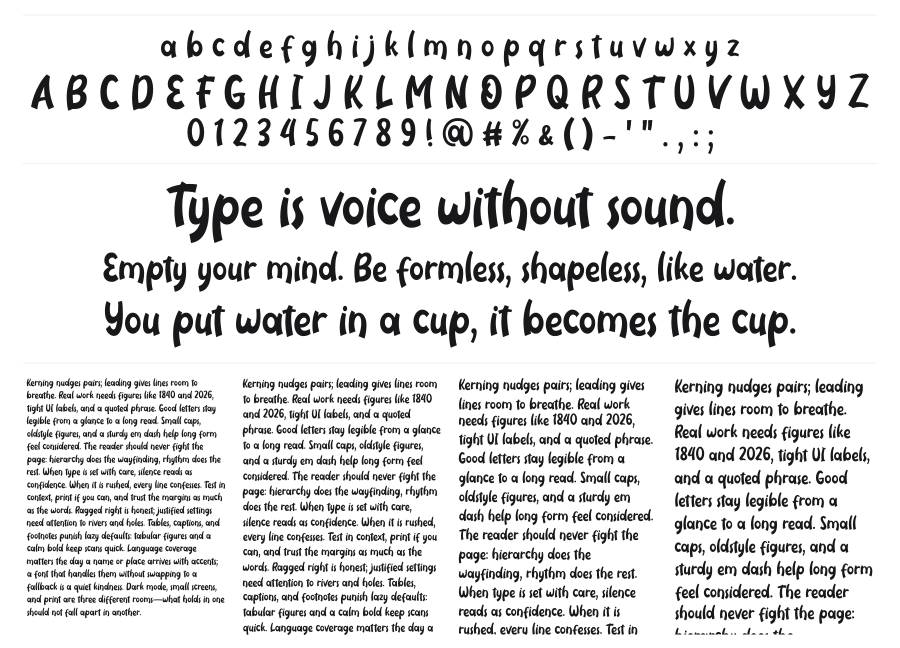
Neigfriste
Neigfriste is a bold, heavy display font with a loose, hand-lettered comic character. Each letter tilts and curves with casual irregularity, giving the whole design an energetic, spontaneous feel. Works well wherever a headline needs warmth and personality without taking itself too seriously.